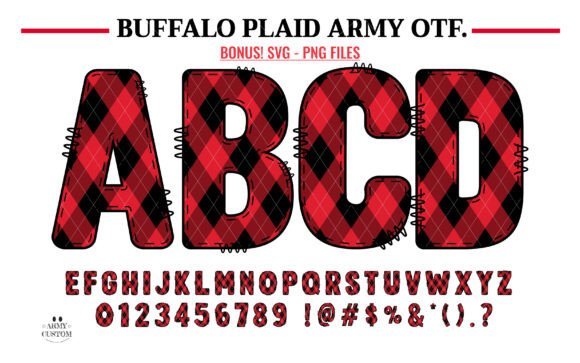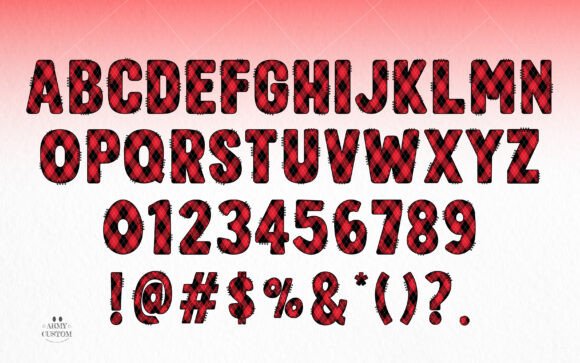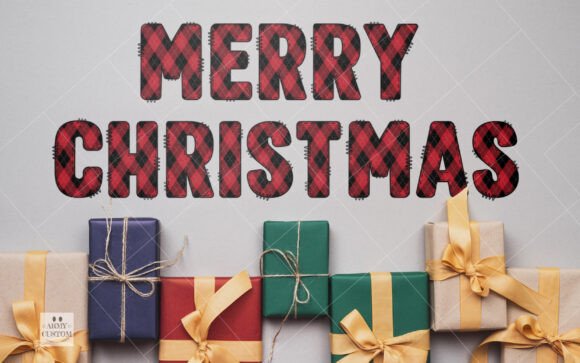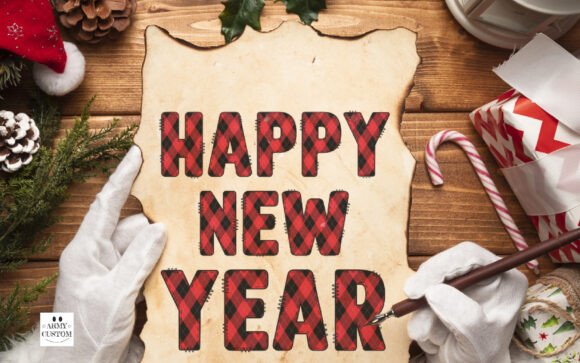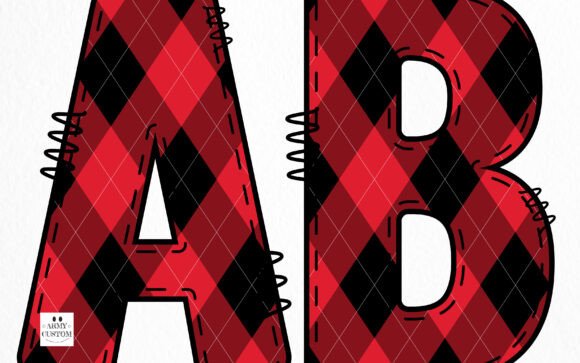
Finding the Perfect Font for the Holiday Season
As the snowflakes start to fall and the fireplace crackles to life, many designers are on the hunt for the perfect font to capture the essence of the holiday season. It’s that magical moment when you stumble upon a font that embodies the warmth and coziness of a winter wonderland. For those seeking a font that embodies the spirit of the season, look no further than the Buffalo Plaid Army Font.
This delightful font seamlessly weaves traditional charm with an engaging aesthetic, making it a valuable addition to any designer’s toolkit. Its rich red plaid pattern adds a quintessential holiday touch to every word, inviting the cozy comfort of a log cabin Christmas. Whether you’re crafting holiday cards, gift tags, or social media graphics, the Buffalo Plaid Army Font is sure to bring a touch of rustic charm to your designs.
Buffalo Plaid Army Font Key Features
- Font Family: A custom-designed font with a unique, distressed aesthetic inspired by the classic Buffalo Plaid pattern.
- Unique Characteristics: Distressed, rugged texture with a subtle plaid pattern, giving it a vintage, outdoorsy feel.
Buffalo Plaid Army Font Review
Overall, I was excited to dive into the Buffalo Plaid Army Font. The first thing that caught my attention was its bold, eye-catching aesthetic ✨. The unique combination of distressed and vintage elements really makes this font stand out. It’s perfect for anyone looking to add a touch of rugged, outdoorsy flair to their design projects.
Here are some of the things that work well in this font:
- Highly customizable: With a wide range of options for customization, you can tailor the font to fit your specific design needs.
- Unique aesthetic: As mentioned earlier, the combination of distressed and vintage elements gives this font a truly one-of-a-kind look.
- Works well in various contexts: Whether you’re designing a logo, brochure, or social media graphics, the Buffalo Plaid Army Font is a versatile choice.
However, there are some limitations to consider ⚠️:
- Lack of legibility: In some instances, the font can be difficult to read, particularly in smaller sizes.
- Overly reliant on nostalgia: The distressed and vintage elements may appeal to some designers, but others may find it too gimmicky or overdone.
Overall, I’d give the Buffalo Plaid Army Font 3.5 out of 5 stars. While it has its limitations, it’s still a unique and eye-catching choice that can add a lot of personality to your designs. With some careful consideration and strategic use, this font can be a valuable addition to your design toolkit.
Use Buffalo Plaid Army Font for designs that require a bold, rugged, and outdoorsy feel.
Some common use cases include:
Outdoor apparel and gear branding
Western-themed designs
Rustic or country-inspired graphics
Adventure travel and tourism promotions
Alternatives to Buffalo Plaid Army Font
Bodoni is a classic serif font known for its elegance and sophistication. It’s ideal for use in high-end designs, such as luxury branding, fashion, and fine art. Unlike Buffalo Plaid Army Font, Bodoni is more refined and less playful, making it suitable for formal and professional applications.
Playfair Display is a luxurious serif font with a touch of elegance. It’s perfect for use in high-end designs, such as luxury branding, weddings, and special events. Compared to Buffalo Plaid Army Font, Playfair Display is more sophisticated and less rustic, making it suitable for formal and high-end applications.
Great Vibes is a modern script font that’s perfect for use in creative and playful designs. It’s ideal for branding, advertising, and social media graphics. Unlike Buffalo Plaid Army Font, Great Vibes is more whimsical and less edgy, making it suitable for designs that require a touch of personality and flair.